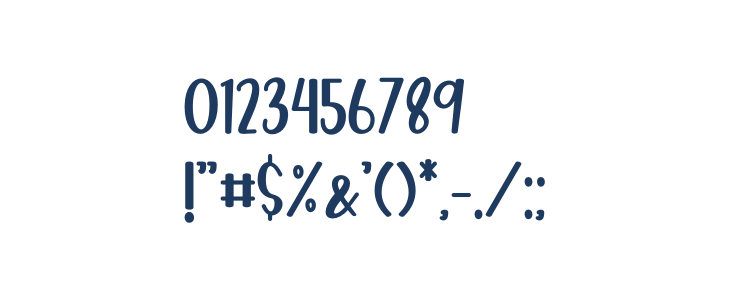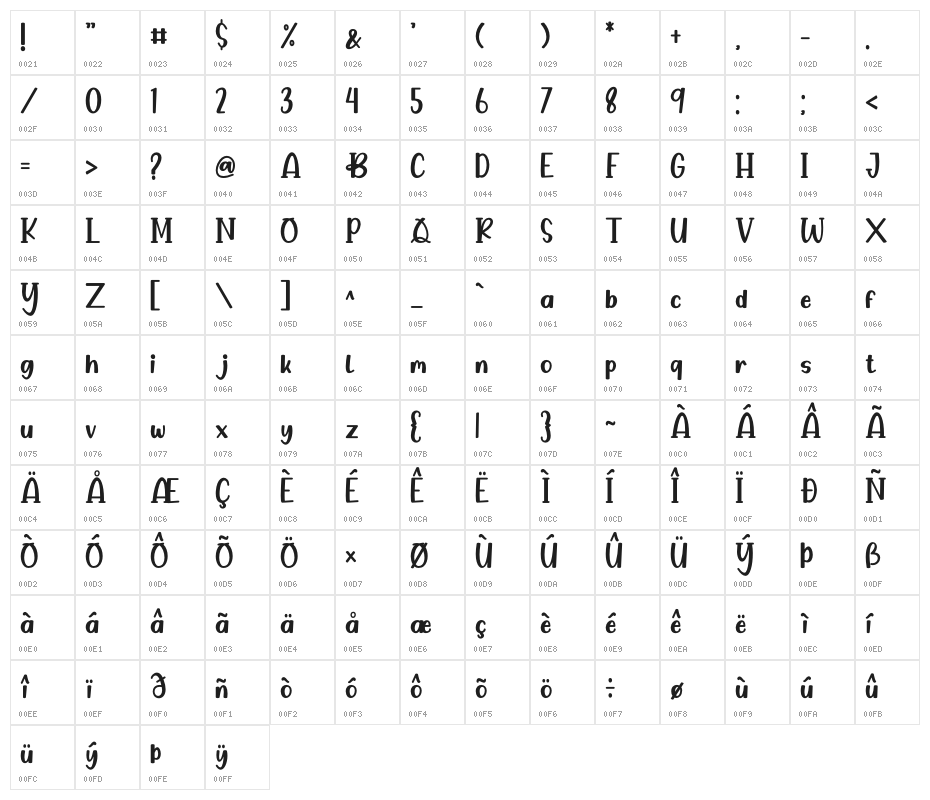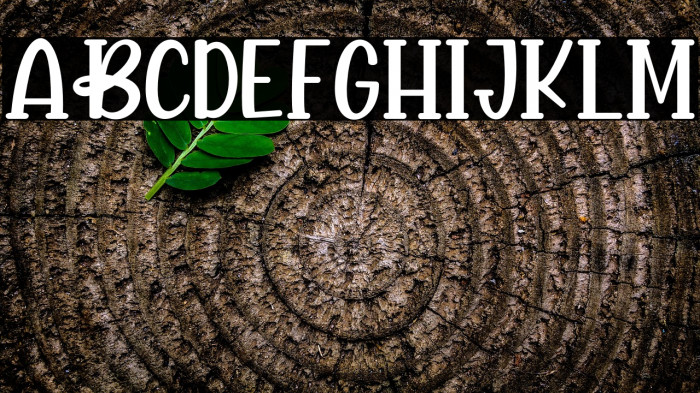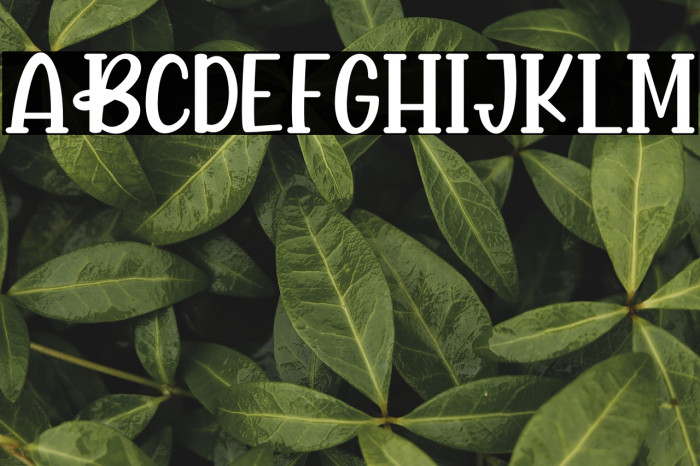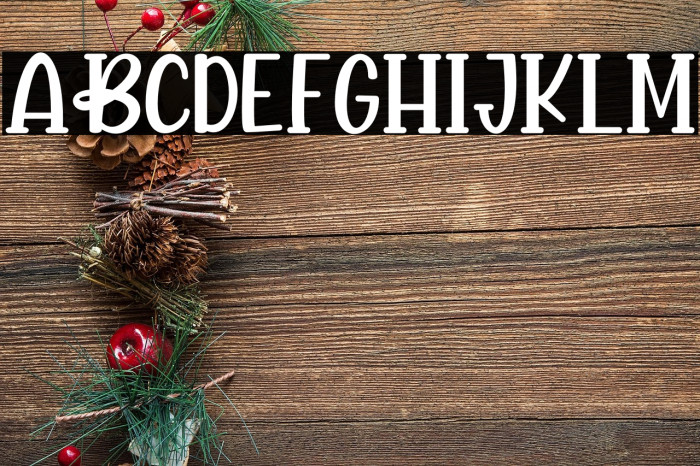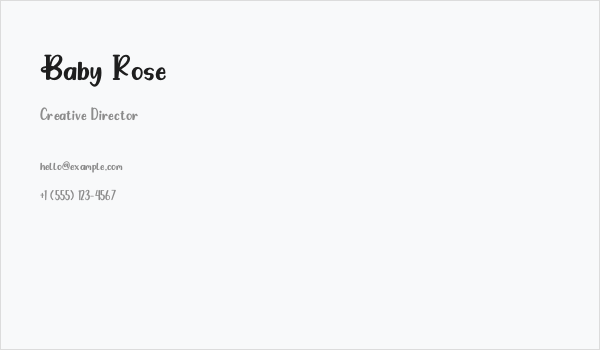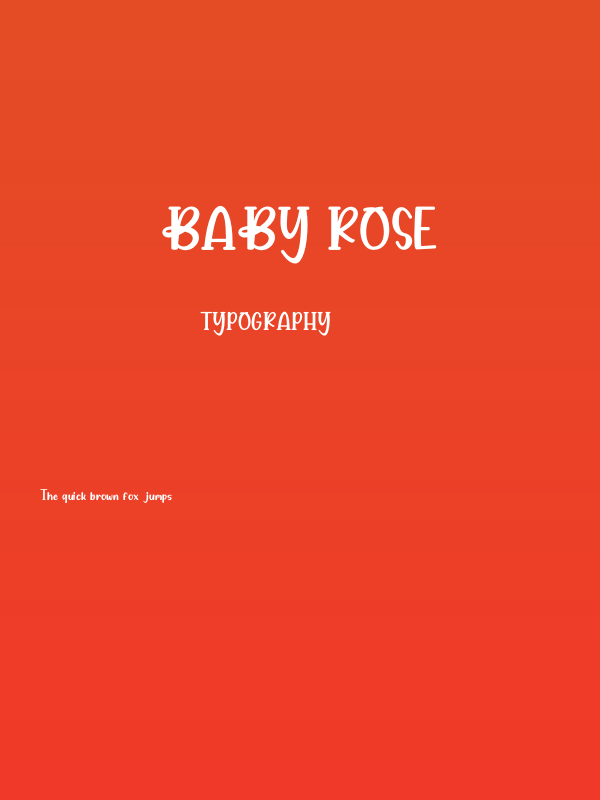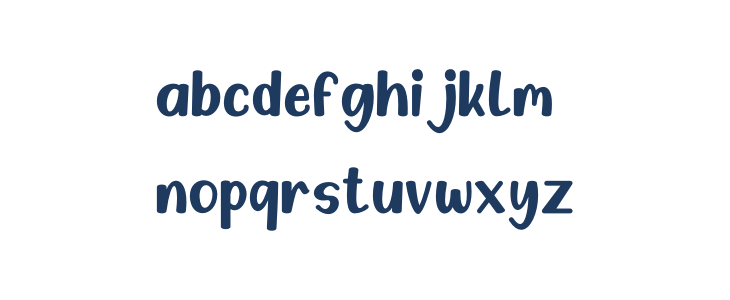
Baby Rose Font
Baby Rose Description
This playful and whimsical font features a handwritten style with a charming, casual appearance. The uppercase letters are bold and slightly condensed, with unique character shapes that add a touch of personality. The lowercase letters maintain a consistent flow, with rounded edges and a friendly demeanor. The numerals are clear and easy to read, matching the overall playful theme. Special characters are creatively designed, fitting seamlessly with the rest of the font. This font is perfect for projects that require a fun and approachable aesthetic.
| Proposed Projects | Ideal for children's books, playful branding, greeting cards, and creative posters. |